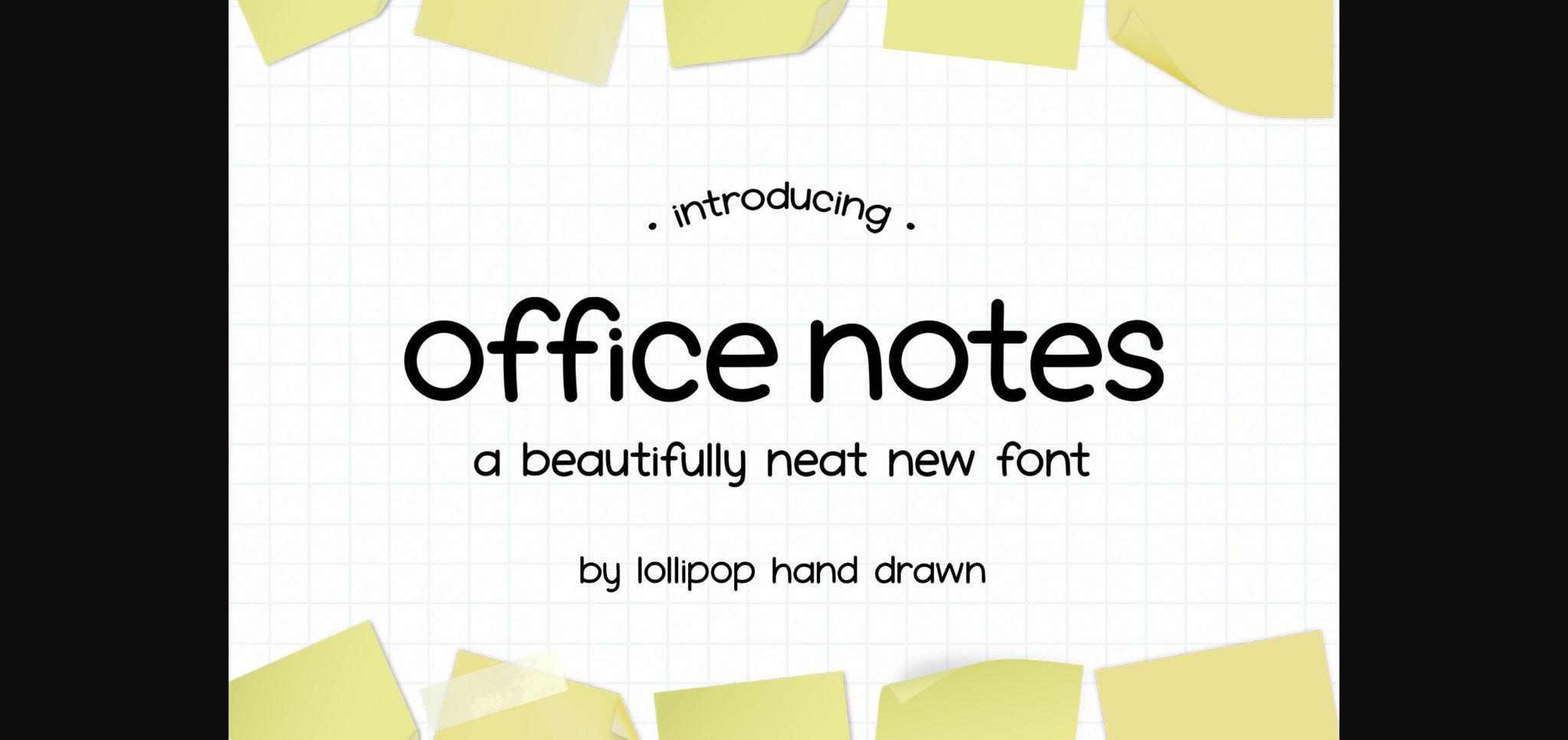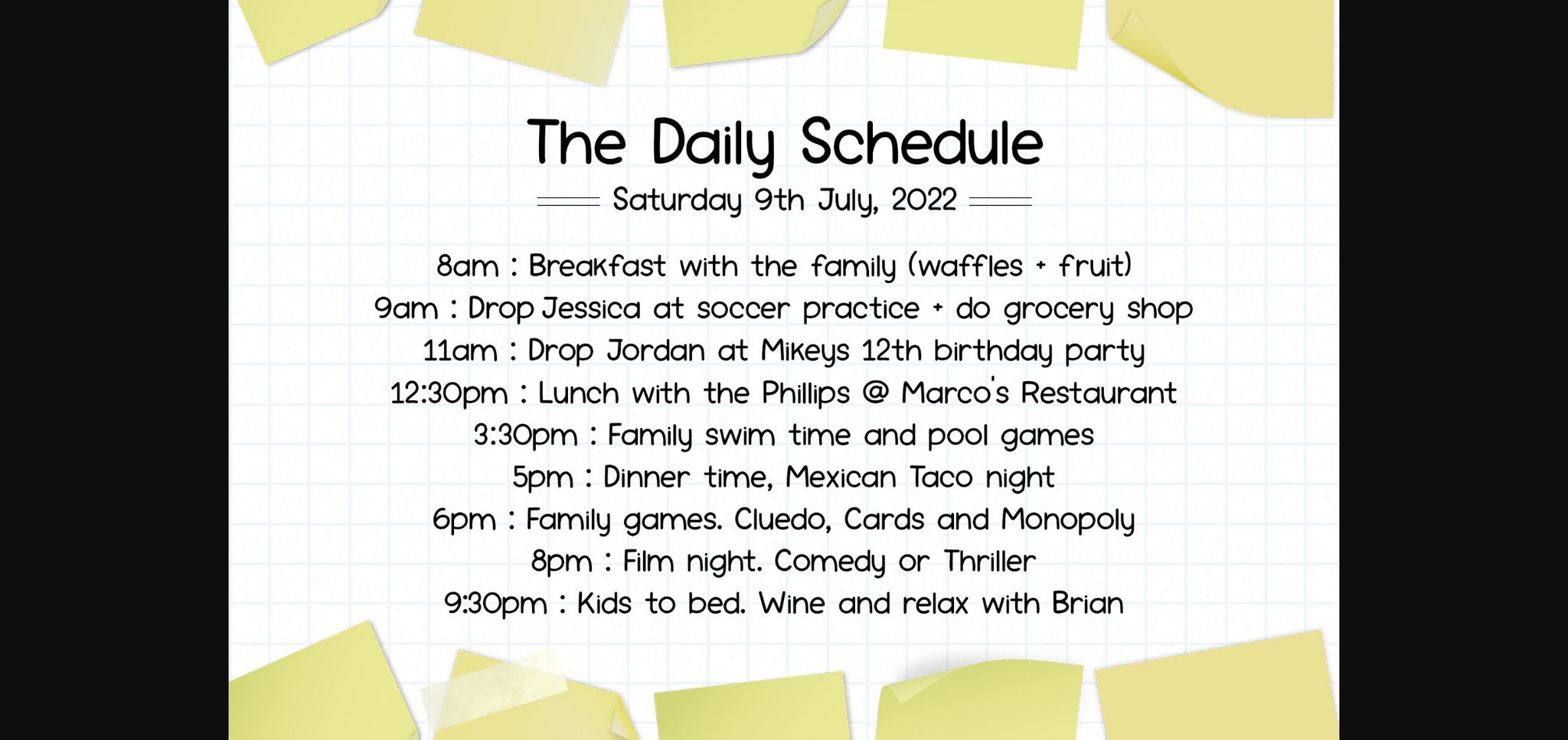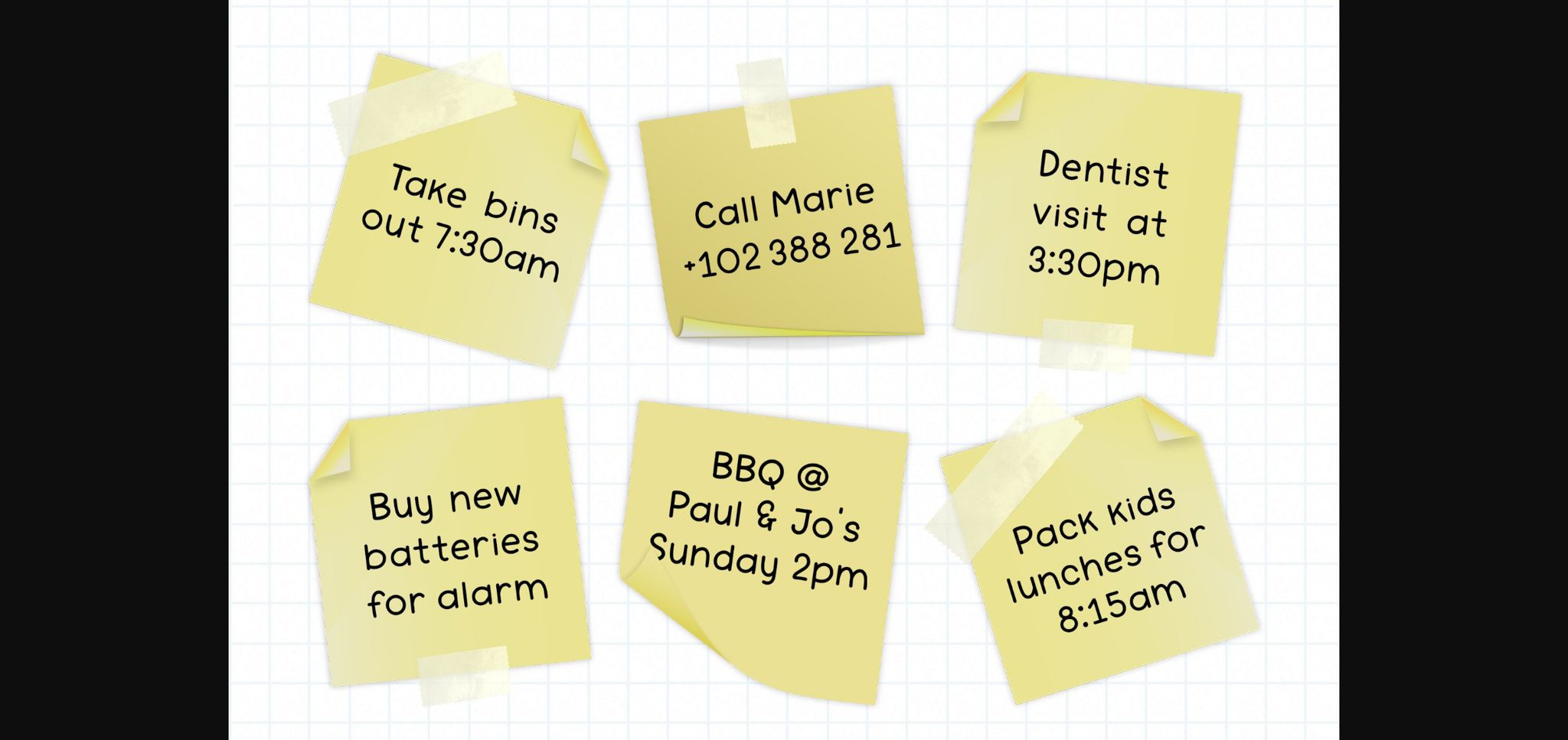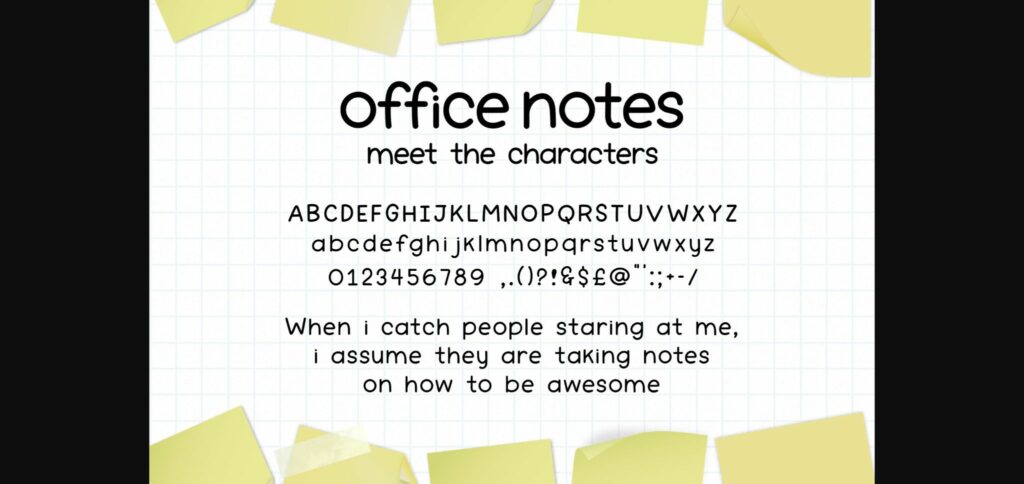
Office Notes Font
About Office Notes Font
Office Notes is a cute and playful handwritten sans serif font. Whether you’re using it for crafts, digital design, presentations, or making greeting cards, this font has the potential to become your favorite go-to font, no matter the occasion!